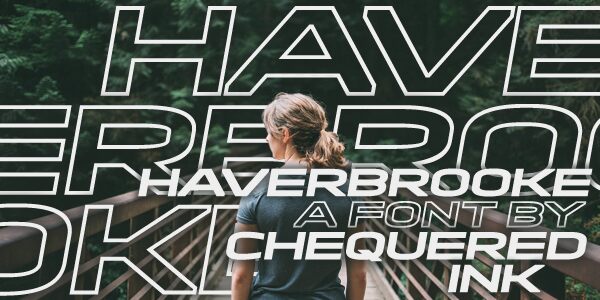
Haverbrooke
Haverbrooke, the latest creation by font designer Allison James, is a unique sans serif typeface that combines modernity and sophistication. The semi-bold weight gives it a strong presence on any medium, while the extra-expanded width provides ample space for creative expression. Haverbrooke's versatility makes it suitable for various projects such as branding, advertising, editorial design and more. Its clean lines and elegant curves make it ideal for contemporary designs that require a touch of refinement. Elevate your typography game with Haverbrooke - the perfect choice for designers who want to stand out from the crowd.
Haverbrooke by Chequered Ink.